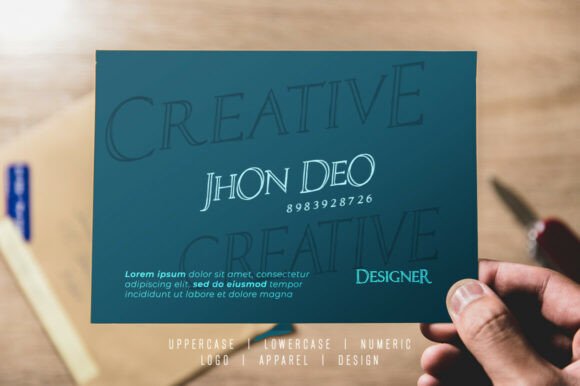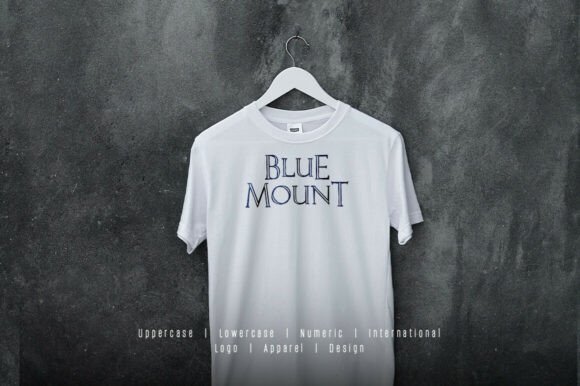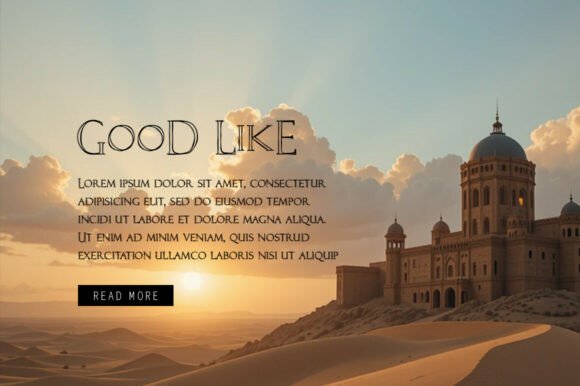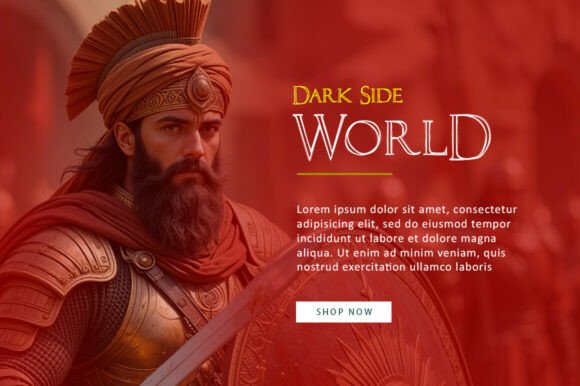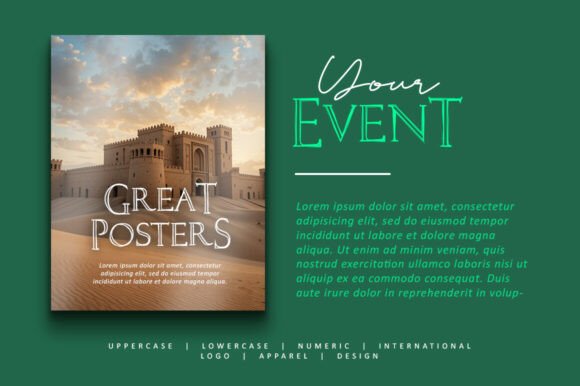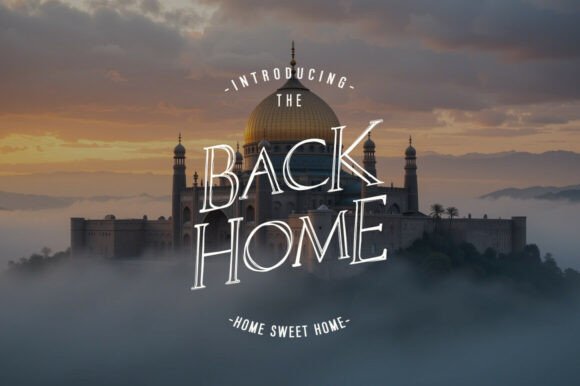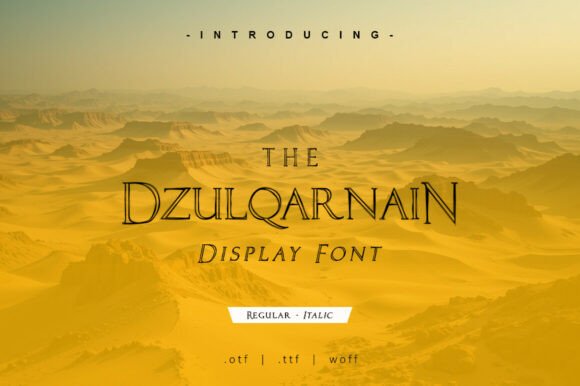
Dzulqarnain Font: A Regal and Dramatic Display Font for Epic Creations
In the world of typography, fonts play a crucial role in conveying the tone and aesthetic of a design. For designers and crafters looking to add a touch of ancient elegance and classical forms to their work, the Dzulqarnain font is an excellent choice. This regal and dramatic display font is inspired by the grandeur of the past, making it perfect for epic titles, historical fiction, fantasy book covers, movie posters, and more.
The Inspiration Behind Dzulqarnain
Dzulqarnain is a font that draws inspiration from the classical forms of ancient civilizations. Its name is derived from the Arabic term for “two-horned,” which refers to the mythological king Dhul-Qarnayn, known for his wisdom and power. The font’s design reflects this legacy, with sharp serifs, ornamental strokes, and commanding letterforms that evoke a sense of timelessness and majesty.
Design Features of Dzulqarnain
One of the standout features of Dzulqarnain is its sharp serifs, which give the font a sense of sophistication and elegance. The ornamental strokes and flourishes add a touch of drama and flair, making it perfect for titles and headings that need to make a statement. The commanding letterforms are designed to convey a sense of power and authority, making Dzulqarnain an excellent choice for designs that require a regal tone.
Use Cases for Dzulqarnain
Dzulqarnain is a versatile font that can be used in a variety of design applications. Some of the most popular use cases include:
• Epic Titles: Dzulqarnain is perfect for creating epic titles for books, movies, and games. Its dramatic and regal tone is sure to grab attention and convey a sense of grandeur.
• Historical Fiction: For designers working on historical fiction projects, Dzulqarnain is an excellent choice. Its classical forms and ornamental strokes evoke a sense of nostalgia and timelessness.
• Fantasy Book Covers: Fantasy book covers often require a font that can convey a sense of magic and wonder. Dzulqarnain’s sharp serifs and commanding letterforms make it an excellent choice for fantasy book covers.
• Movie Posters: Dzulqarnain’s dramatic tone and regal aesthetic make it perfect for movie posters. Its ornamental strokes and flourishes add a touch of glamour and sophistication.
Availability and Variations
Dzulqarnain is available in both regular and italic variations, giving designers a range of options for their projects. The regular version of the font features sharp serifs and ornamental strokes, while the italic version adds a touch of elegance and sophistication.
Adding a Sense of Myth and Legacy to Your Typography
One of the key benefits of using Dzulqarnain is its ability to add a sense of myth and legacy to your typography. The font’s classical forms and ornamental strokes evoke a sense of timelessness and grandeur, making it perfect for designs that require a regal tone. Whether you’re working on a historical fiction project or a fantasy book cover, Dzulqarnain is sure to bring a sense of sophistication and elegance to your design.
Tips for Using Dzulqarnain Effectively
To get the most out of Dzulqarnain, here are a few tips for using the font effectively:
• Use it sparingly: Dzulqarnain is a dramatic font that can be overwhelming if used excessively. Use it sparingly to add emphasis and create a sense of grandeur.
• Pair it with a simple font: To create contrast and add visual interest, pair Dzulqarnain with a simple font. This will help to balance out the dramatic tone of the font.
• Experiment with different sizes: Dzulqarnain looks great in large sizes, but it can also be used effectively in smaller sizes. Experiment with different sizes to find the one that works best for your design.
In conclusion, Dzulqarnain is a regal and dramatic display font that is perfect for designers and crafters looking to add a touch of ancient elegance and classical forms to their work. Its sharp serifs, ornamental strokes, and commanding letterforms make it perfect for epic titles, historical fiction, fantasy book covers, movie posters, and more. With its versatility and range of use cases, Dzulqarnain is sure to become a go-to font for designers looking to create stunning and effective designs.